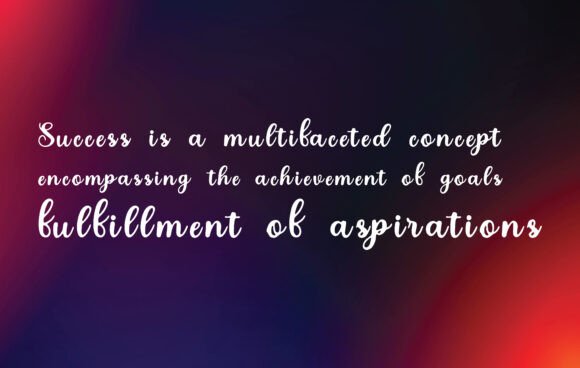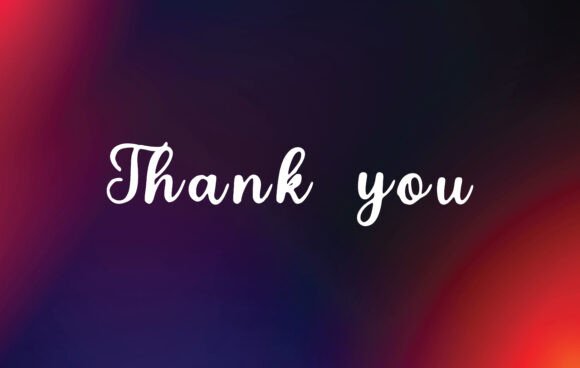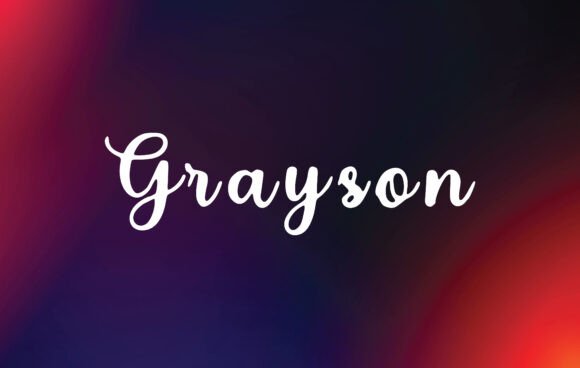
Grayson Font: Elevate Your Creative Projects with this Lovely Handwritten Font
Are you a designer, crafty enthusiast, or simply someone who appreciates beautiful typography? Look no further than the Grayson font, a stunning handwritten font that can take your creative ideas to new heights. In this article, we’ll explore the features and benefits of Grayson, and why it’s the perfect choice for creating eye-catching logos, branding, and quotes.
What is Grayson Font?
Grayson is a lovely and beautiful handwritten font that exudes elegance and sophistication. Its unique, flowing script is perfect for adding a personal touch to any design project. Whether you’re working on a logo, branding materials, or social media graphics, Grayson is sure to make your creative vision stand out.
Key Features of Grayson Font
- Handwritten style: Grayson has a beautiful, handwritten feel that’s perfect for creating personal and emotive designs.
- Elegant and sophisticated: The font’s flowing script and delicate lines give it an air of sophistication and elegance.
- Versatile: Grayson can be used for a wide range of design projects, from logos and branding to quotes and social media graphics.
- Easy to read: Despite its elegant style, Grayson is surprisingly easy to read, making it perfect for use in both digital and print materials.
Why Choose Grayson Font?
So why should you choose Grayson for your design projects? Here are just a few reasons:
- Add a personal touch: Grayson’s handwritten style adds a personal touch to any design project, making it perfect for creating unique and emotive designs.
- Stand out from the crowd: With its elegant and sophisticated style, Grayson is sure to make your designs stand out from the crowd.
- Perfect for branding: Grayson’s unique style makes it perfect for creating eye-catching logos and branding materials that will help your business or brand stand out.
Using Grayson Font in Your Design Projects
So how can you use Grayson in your design projects? Here are a few ideas to get you started:
- Logos and branding: Use Grayson to create eye-catching logos and branding materials that will help your business or brand stand out.
- Quotes and social media graphics: Grayson’s elegant style makes it perfect for creating beautiful quotes and social media graphics.
- Invitations and stationery: Add a personal touch to your invitations and stationery with Grayson’s handwritten style.
- Packaging and labels: Use Grayson to create eye-catching packaging and labels that will make your products stand out.
Tips and Tricks for Using Grayson Font
Here are a few tips and tricks for getting the most out of Grayson:
- Experiment with different colors: Grayson looks great in a range of colors, so don’t be afraid to experiment and find the perfect hue for your design.
- Use it with other fonts: Grayson pairs well with a range of other fonts, so try combining it with other styles to create a unique look.
- Pay attention to spacing: Make sure to pay attention to the spacing between letters and words to ensure that your design looks elegant and sophisticated.
In conclusion, Grayson is a beautiful and versatile handwritten font that’s perfect for designers, crafters, and anyone who appreciates beautiful typography. With its elegant style, versatility, and ease of use, Grayson is sure to take your creative ideas to the next level. So why not give it a try and see the difference it can make in your design projects?